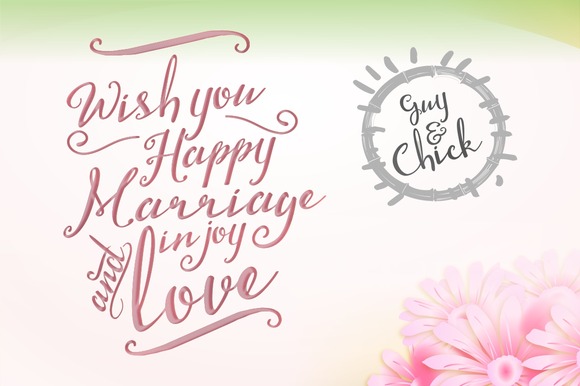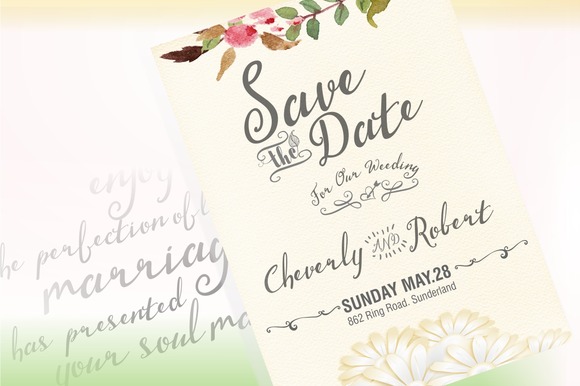
Cheverly Script
Cheverly Script Font
Cheverly Script. It’s an modern typeface. Smooth, sophisticated Script Cheverly drawn and redrawn and the connection of letters refined to make an appearance handwriting correctly.